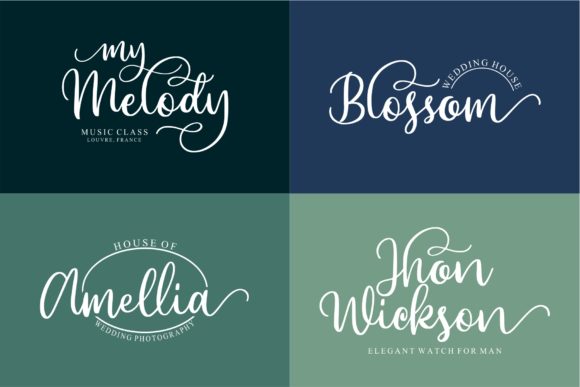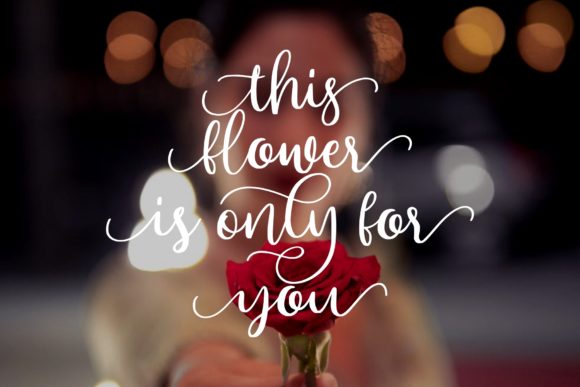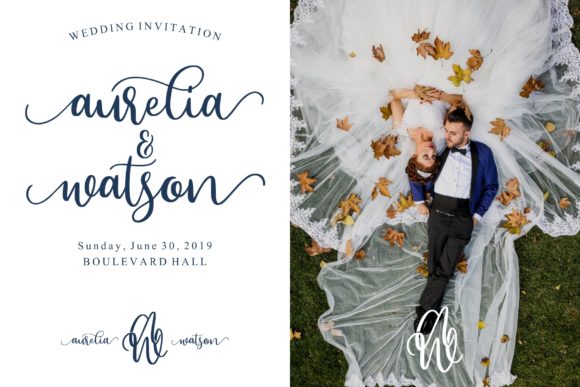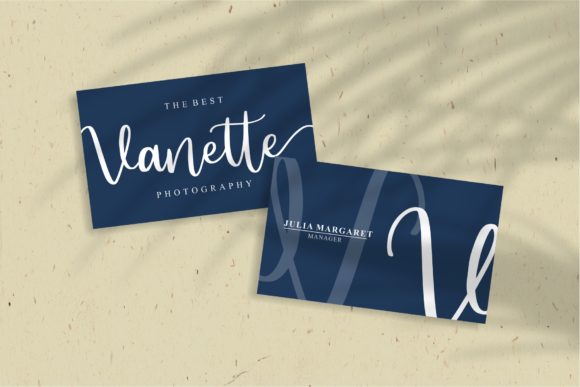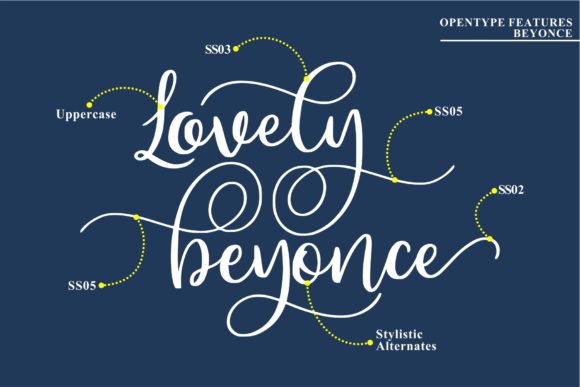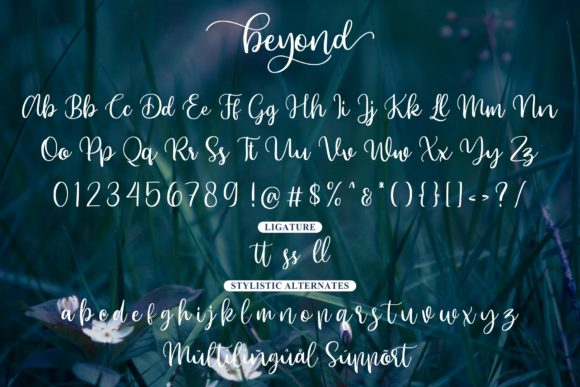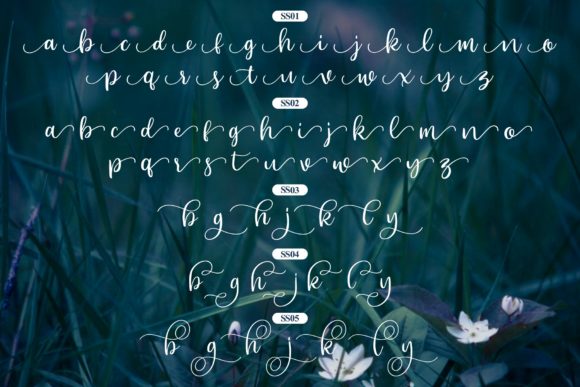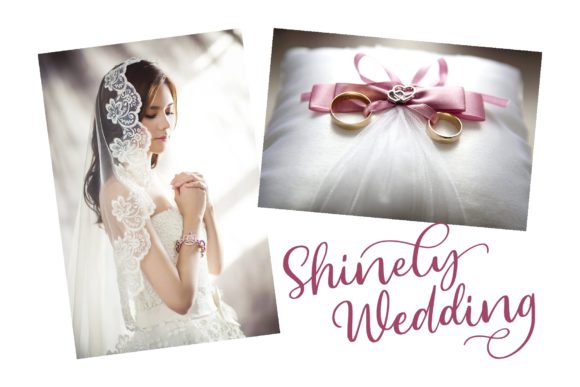
HomeScript FontsBeyond Font Script Fonts Beyond Font FacebookXPinterestWhatsApp Beyond Font Poster 2 Beyond Font Poster 3 Beyond Font Poster 4 Beyond Font Poster 5 Beyond Font Poster 6 Beyond Font Poster 7 Beyond Font Poster 8 Beyond Font Poster 9 About Beyond Font Go Beyond with this amazing script. Beyond is a strikingly original and playful take on modern handwritten fonts. DOWNLOAD NOW People also explored Shiny Beach Font Nadine Font Zunebane Font Agraffito Font Alisabeth Font The Kitchen Font Modern Sans-Serif Fonts That Brands Love in 2025 Bawgier Lipovka Font 330 0 TagsBeyond Font Previous articleCumils FontNext articleMonalisa Font LEAVE A REPLY Cancel reply Comment: Please enter your comment! Name:* Please enter your name here Email:* You have entered an incorrect email address! Please enter your email address here Website: Save my name, email, and website in this browser for the next time I comment. Personal Use Free Gratisan Personal Use Free Read more about this font Houstonville Personal Use Free Read more about this font The Bocah Personal Use Free Read more about this font Time for Presents Personal Use Free Read more about this font BLOG The 10 Best Handwriting Fonts to Add Personality to Your Designs 10 of the Best Handwriting Fonts for Adding Personality to Your Designs There will undoubtedly be no other better choice than handwriting fonts to give... Free Fonts Risk: Why Free Fonts Can Be Dangerous for Designers Top 10 Handwritten Fonts That Elevate Your Designs Fonts That Capture the Spirit of New York City